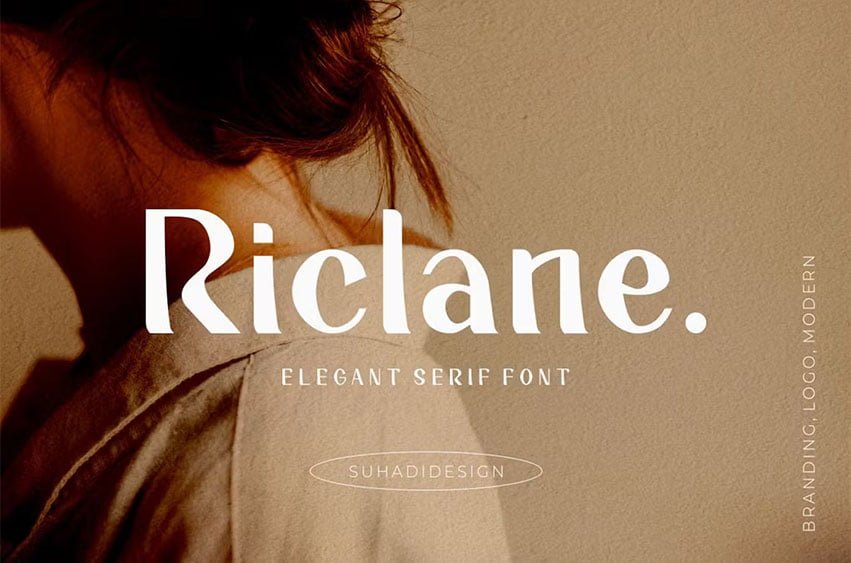
Riclane Font elegant serif font. Hi Ladies and Gentlemen! According to the market demand for fonts that tend to be more modern, then I decided to make a serif font that is in your view. The Riclane font is a serif font with very beautiful, comes with a modern style hoping to become a market favorite. We keep this font looking elegant, classy, easy to read, stylish, attractive and easy to use. Riclane Font is a great choice for magazines, retro designs, newspapers, books, brand names, branding, and other projects. The Riclane font is here to take the quality of your designs to a higher level.
The Riclane font style will make you love designing and taking advantage of the cool design results for this font.